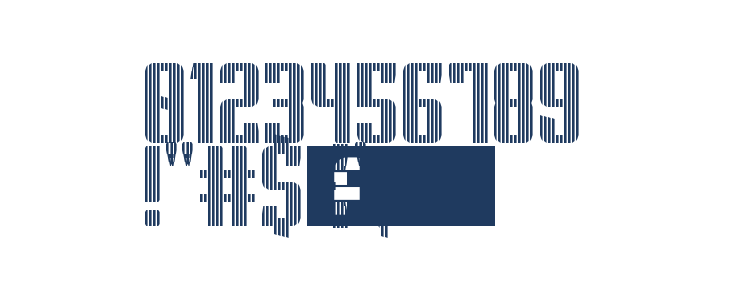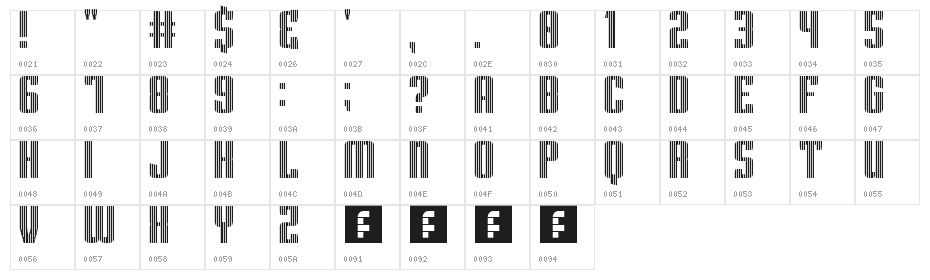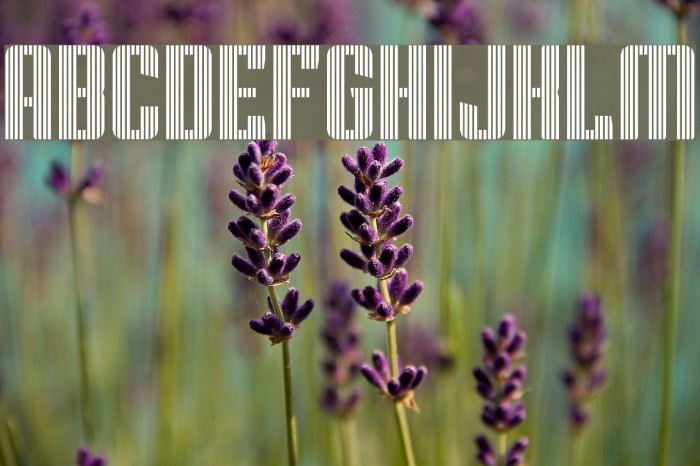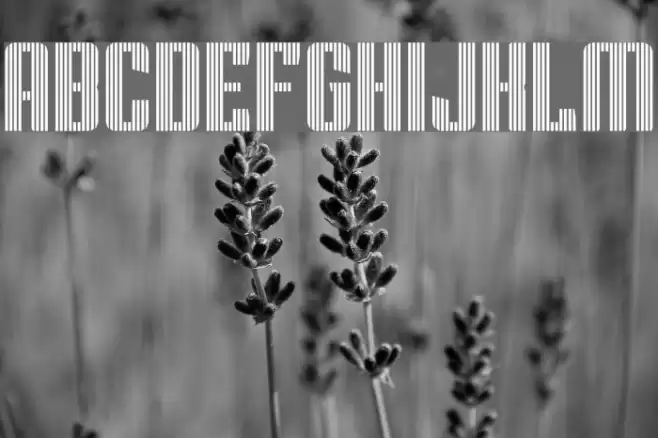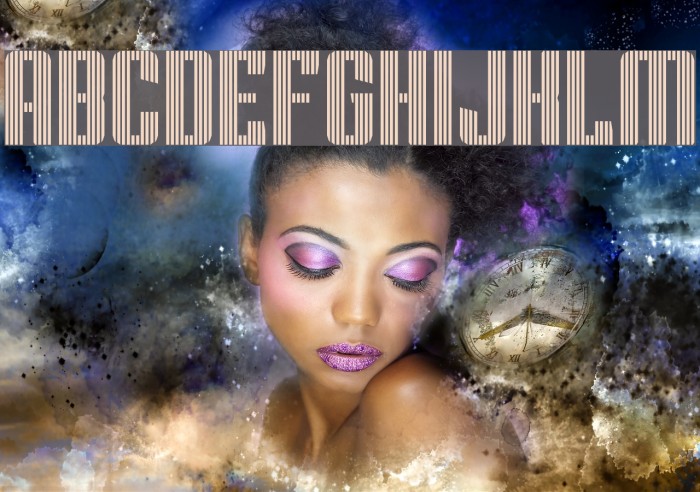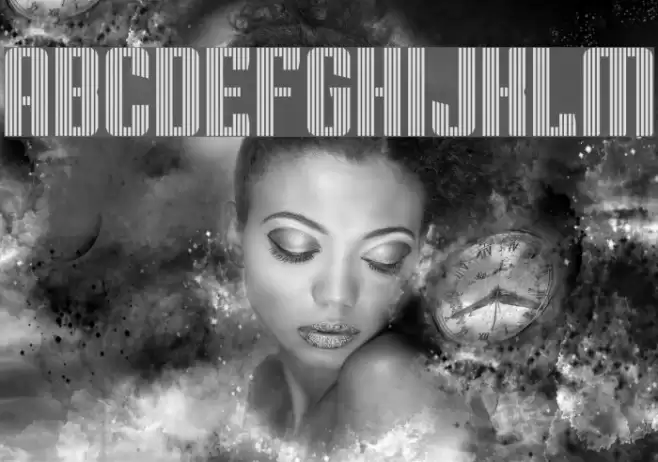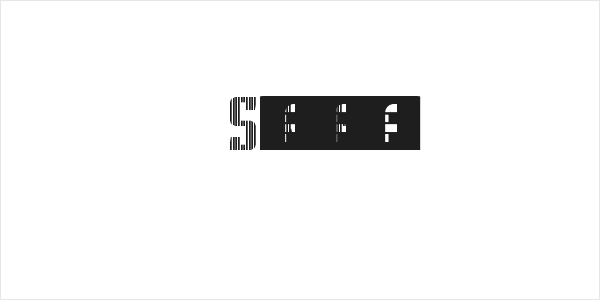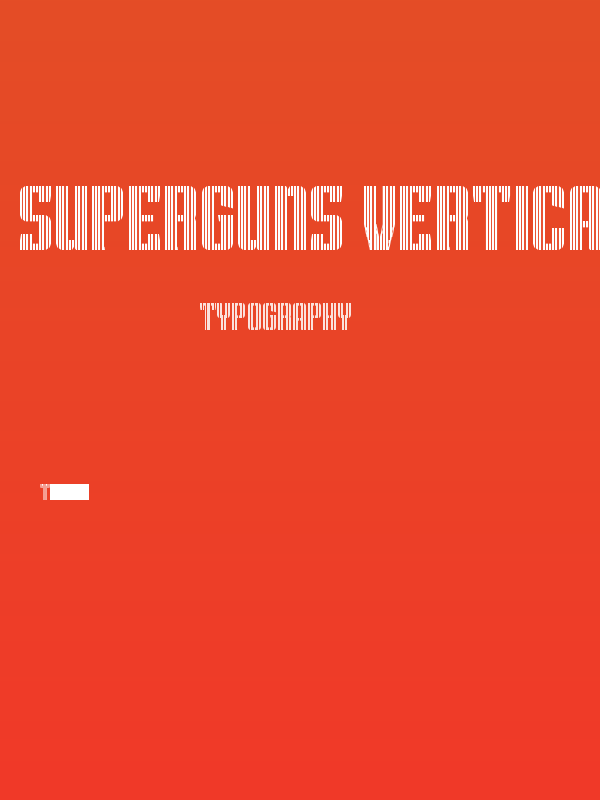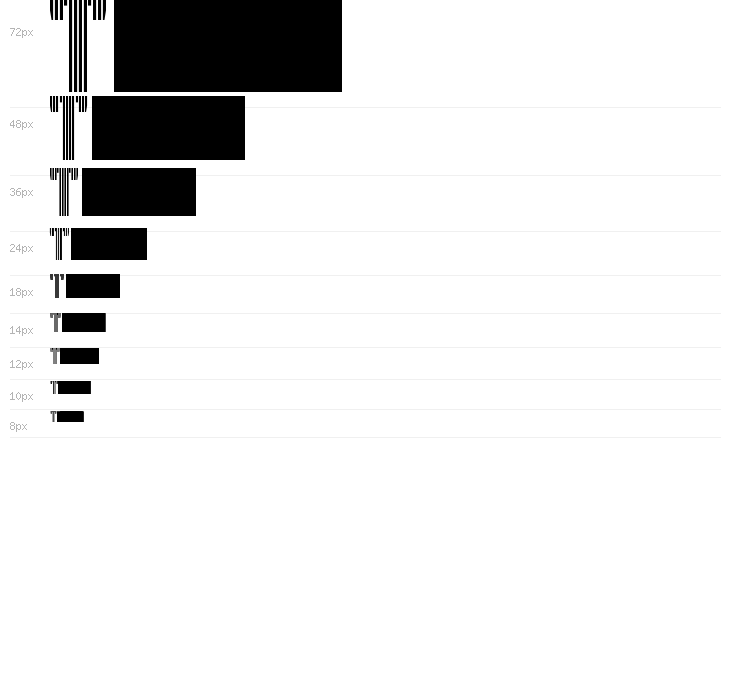
Superguns Vertical Regular Font
Superguns Vertical Regular Description
This font features a unique vertical striped pattern that gives it a striking and modern appearance. Each character is composed of parallel lines, creating a barcode-like effect that is both eye-catching and distinctive. The uppercase and lowercase letters, as well as numbers and special characters, maintain a consistent design, ensuring uniformity across all text. The font's geometric structure and bold lines make it ideal for projects that require a futuristic or industrial aesthetic. Its decorative nature makes it more suitable for display purposes rather than body text.
| Proposed Projects | Ideal for posters, album covers, branding, and any project needing a futuristic or industrial look. |